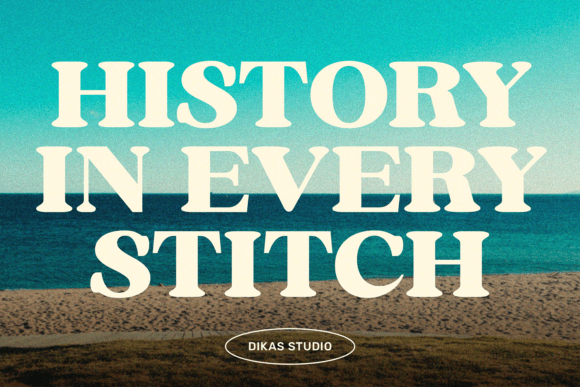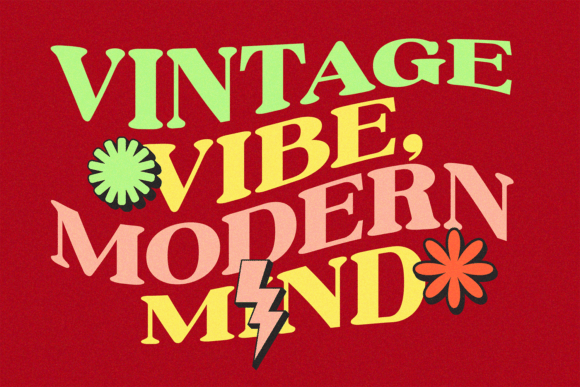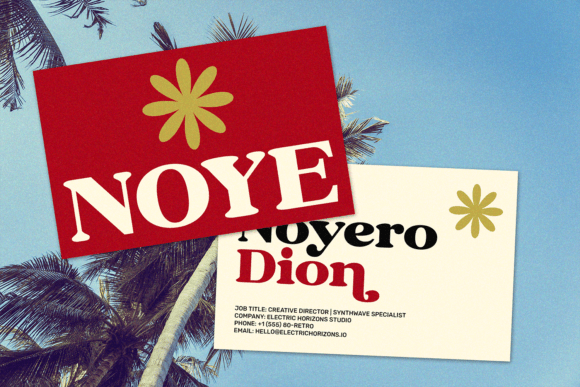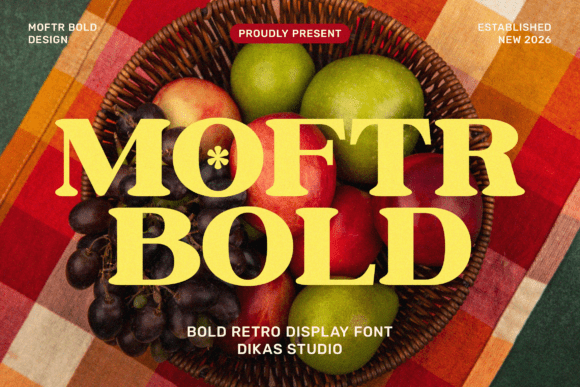
Introduction to Moftr Font
Moftr is a bold vintage serif font that brings retro energy and playful character into your designs.
With its strong black weight and confident letterforms, Sanzkina captures the spirit of classic typography while keeping a fun and expressive personality Inspired by retro and vintage aesthetics, this serif typeface is perfect for posters, logos, branding, packaging, and display designs that need to stand out.
Key Features of Moftr Font
Why Choose Moftr Font?
Moftr Font offers exceptional quality and versatility, making it a valuable addition to your design toolkit. Whether you’re creating for personal projects or commercial use, Moftr Font delivers professional results.